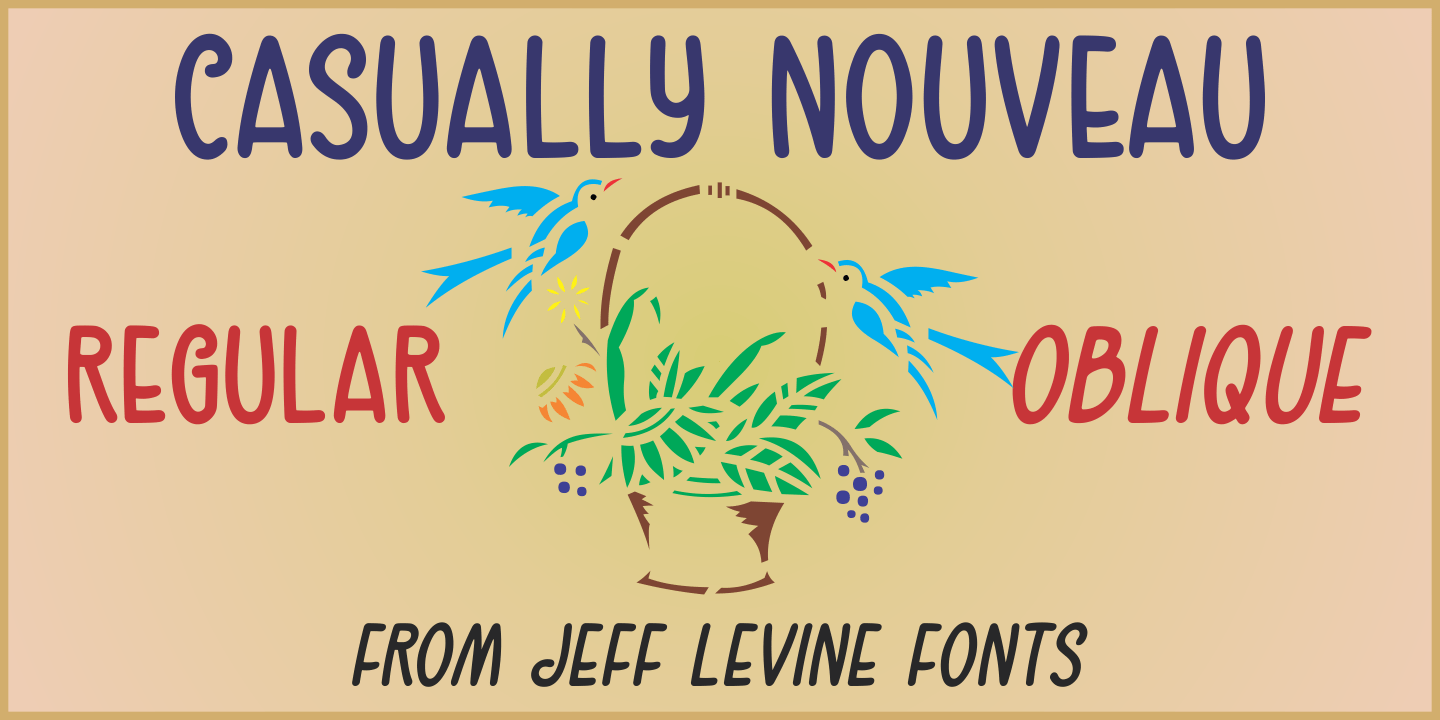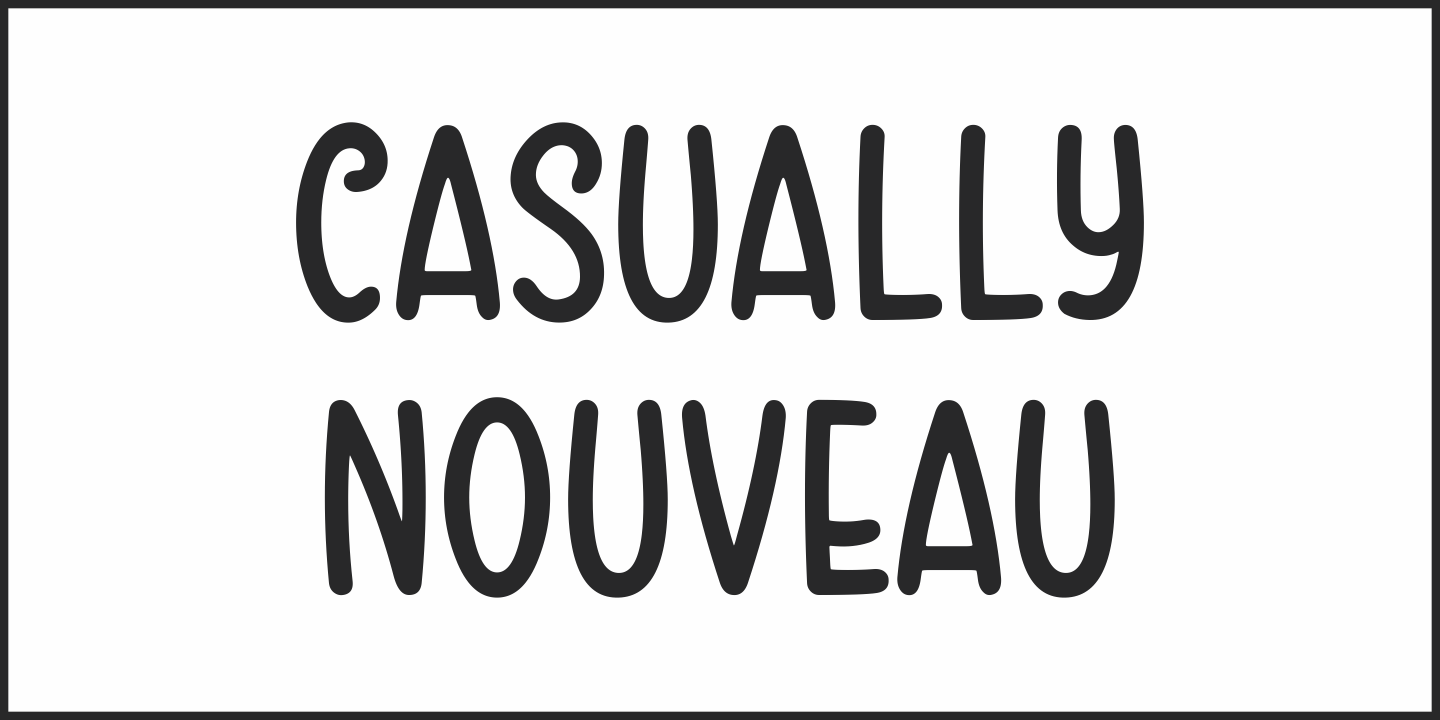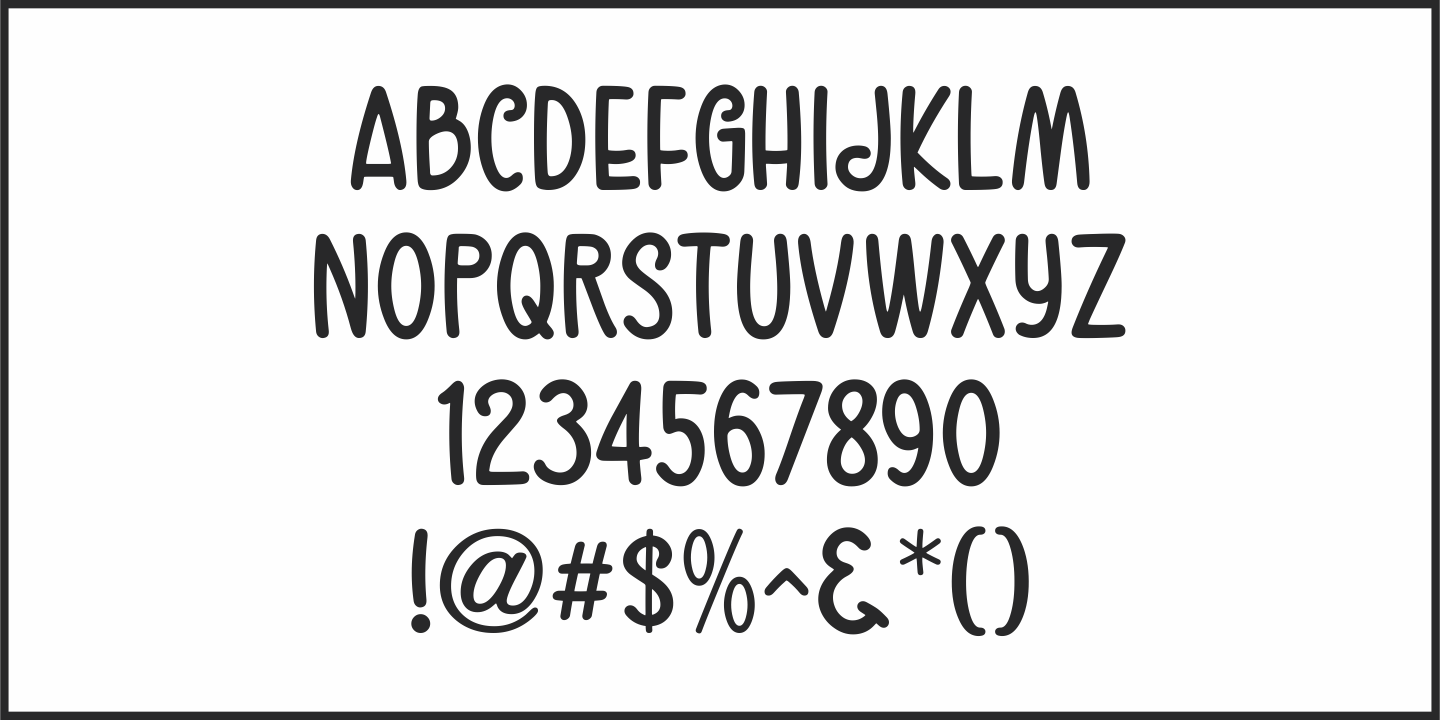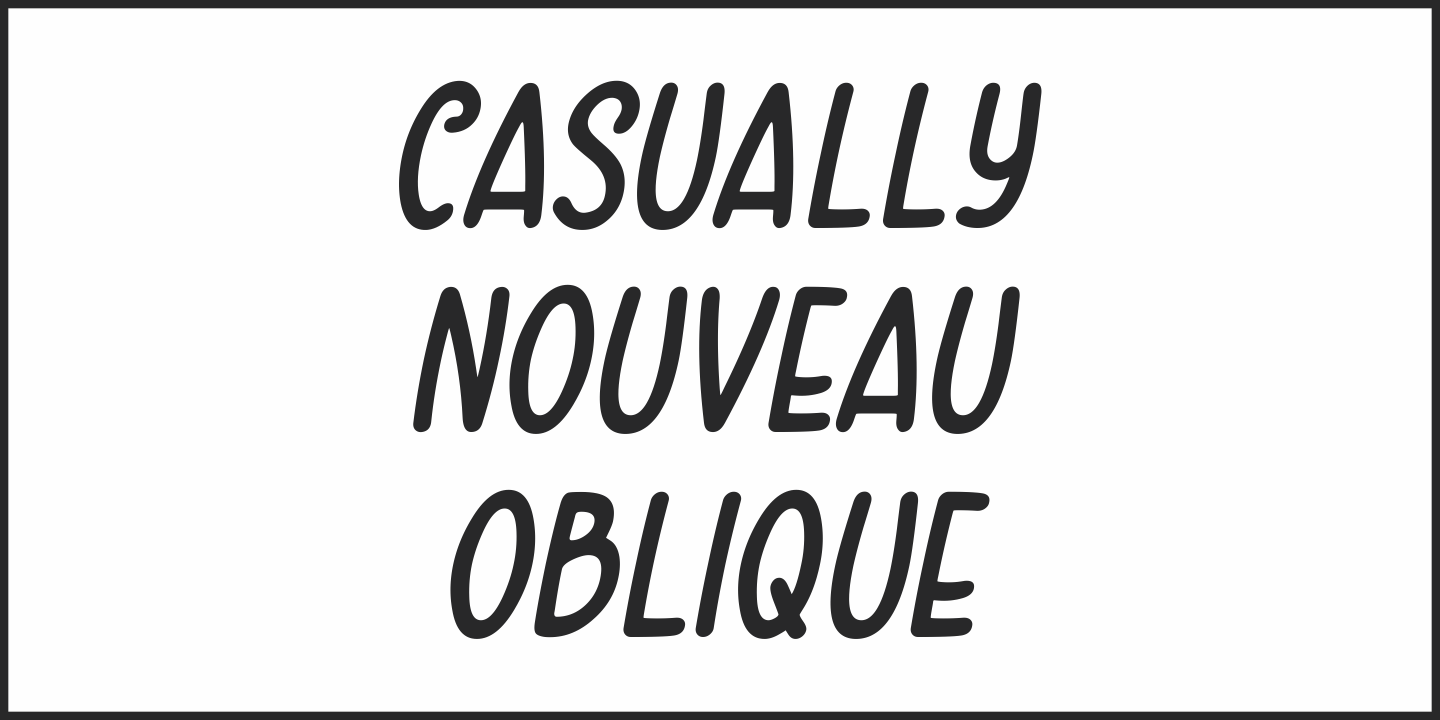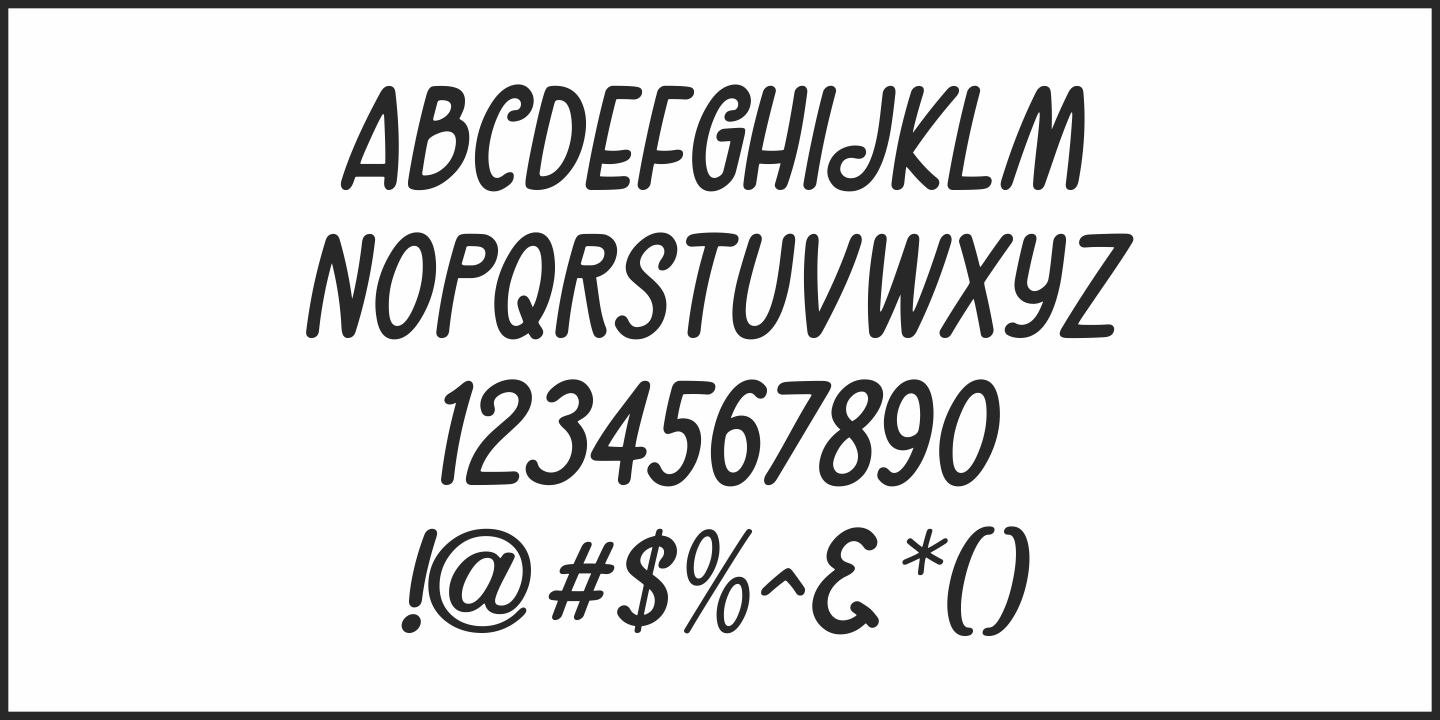
Casually Nouveau
The 1930 sheet music for 'A Peach of a Pair” from Paramount Pictures' 'Follow Through” listed the stars and production credits in a wonderfully casual, free-form Art Nouveau hand lettering.
This has been recreated digitally as Casually Nouveau JNL, and is available in both regular and oblique versions.
For another Art Nouveau typeface with a free-form look, try the similarly named Casual Nouveau JNL.
Casually Nouveau JNL Regular by Jeff Levine Fonts